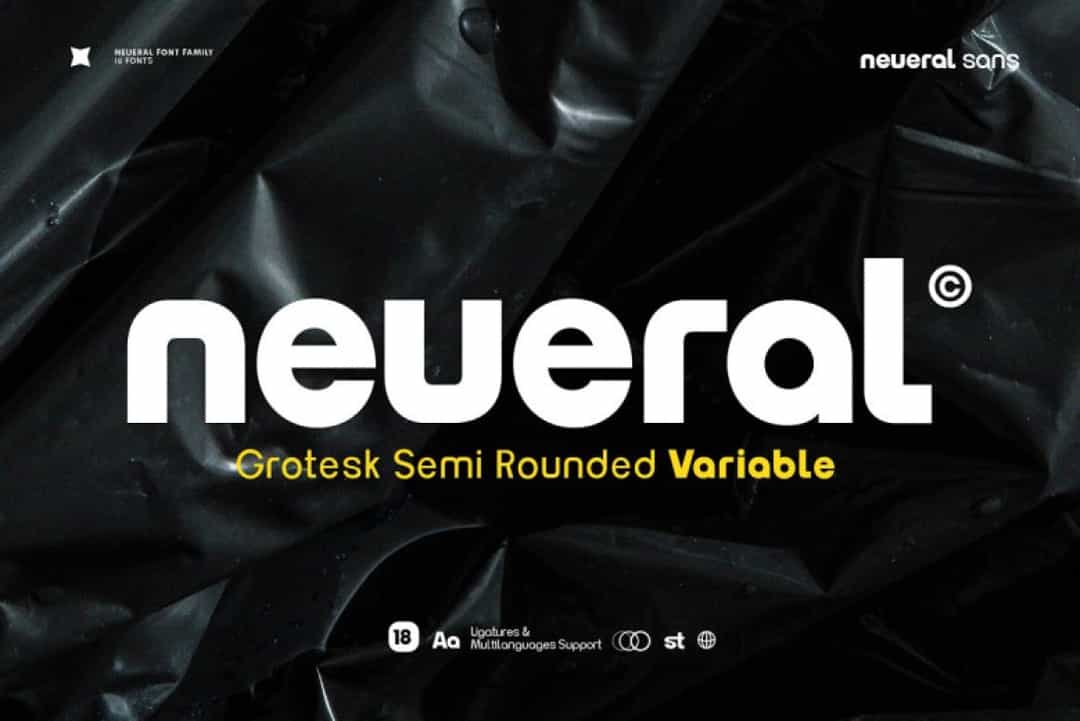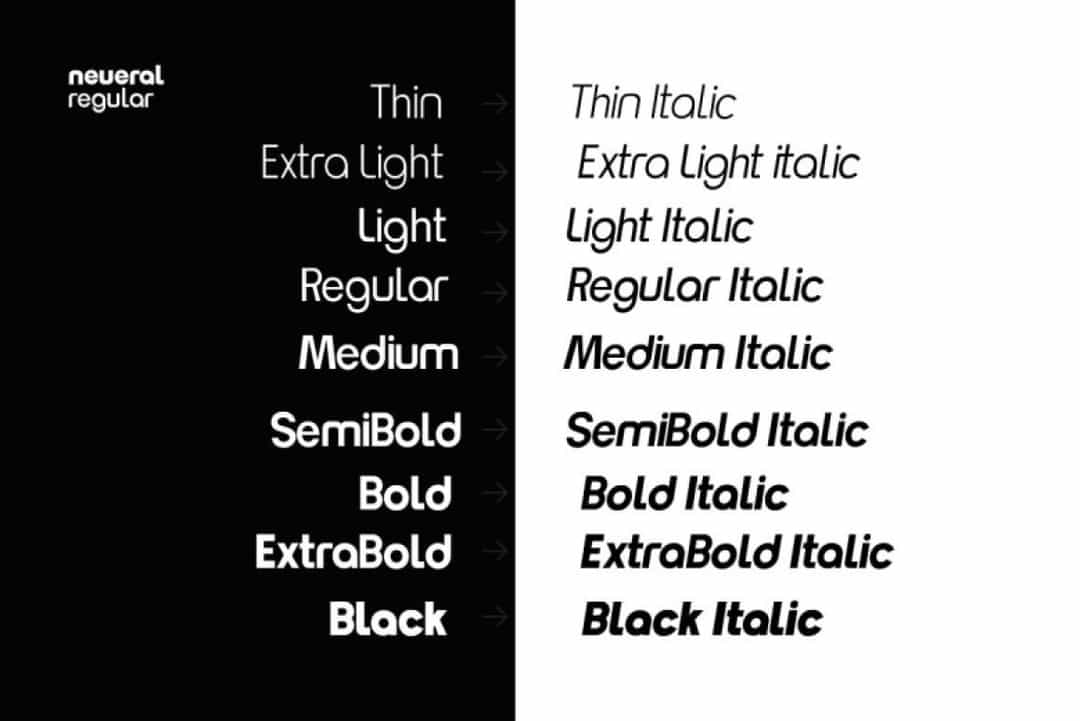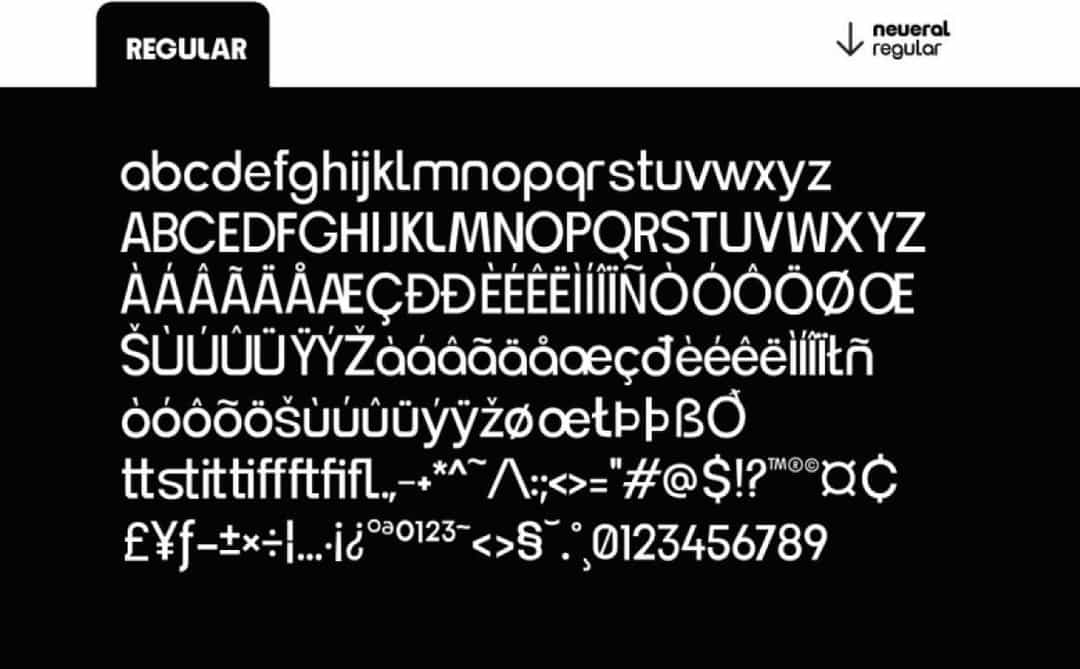
Discover Neueral Font, part of the Sans Serif collection—a versatile and unique font perfect for adding a personal touch to your projects. Download it for free and enjoy crafting designs with style, from invitations to social media posts. This font is available exclusively for personal use, giving you the freedom to create without limits. Unlock your creativity with Neueral Font today!
Neueral is a semi-round geometric sans serif font featuring flexible glyphs that are both modern and contemporary with neutral font characteristics, making it an excellent choice for logo design, articles waysfinding system fonts branding business cards as well as many other applications. There are 18 fonts to choose from including Latin easy ligatures.